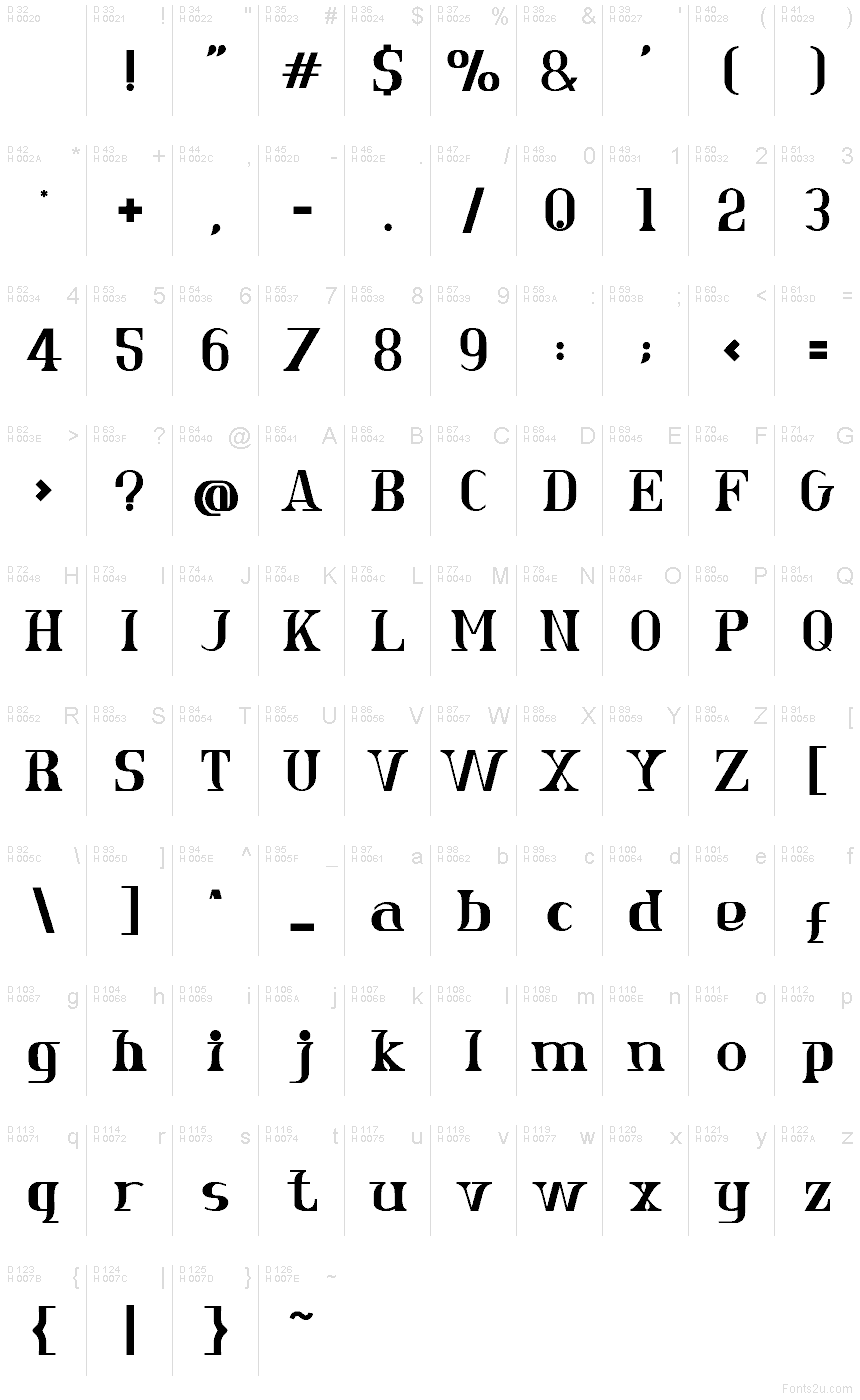
Astra Goldie
Astra Goldie font by PutraCetol Studio is a free decorative serif typeface. Its personality comes from those carved, blade-like notches and tapering strokes that feel sculpted rather than drawn—sleek, inky, and a little theatrical. The rhythm snaps from slim stems to bold swells, giving headlines a luxe, old-world shimmer without going full blackletter.
Using Astra Goldie, you’ll get striking results on book covers, boutique branding, wine labels, event posters, packaging, and editorial title pages. The spacing holds together at larger sizes, so short phrases land with confident weight and crisp edges. Pair this free font with a restrained grotesque sans for body copy, and keep the serif a size or two larger to let those chiselled cuts breathe.